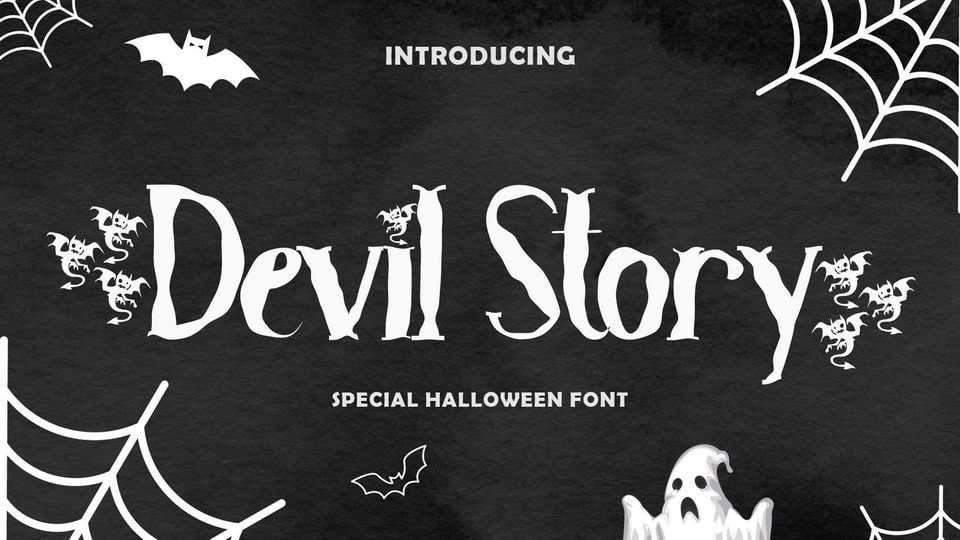
Download Devil Story font, a Halloween-themed serif typeface, decorated with “devil” letters. Devil Story font is perfect for Halloween party celebrations, party invitations, posters, prints, stickers, and more.